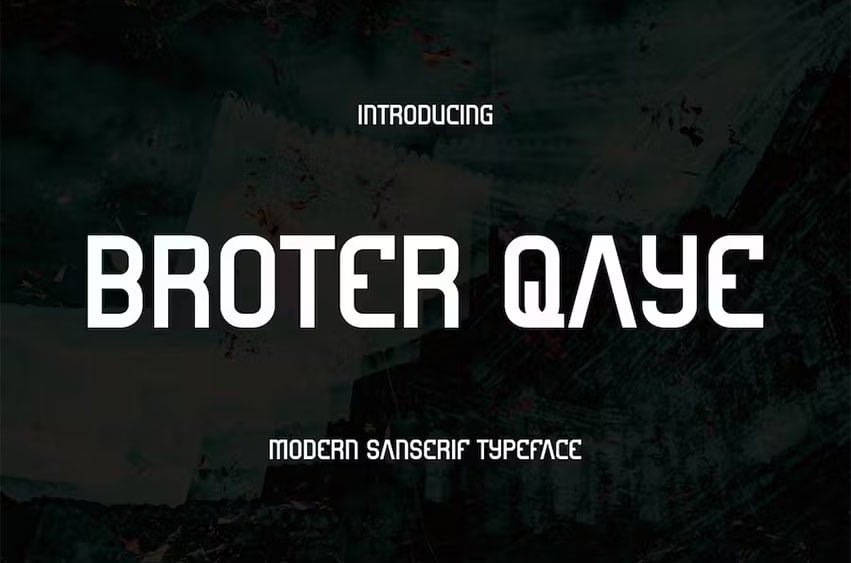
Broter Qaye Font
Broter Qaye Font is an elegant and authentic display font. It will be a great fit for logos, headlines, posters, games, or other projects.